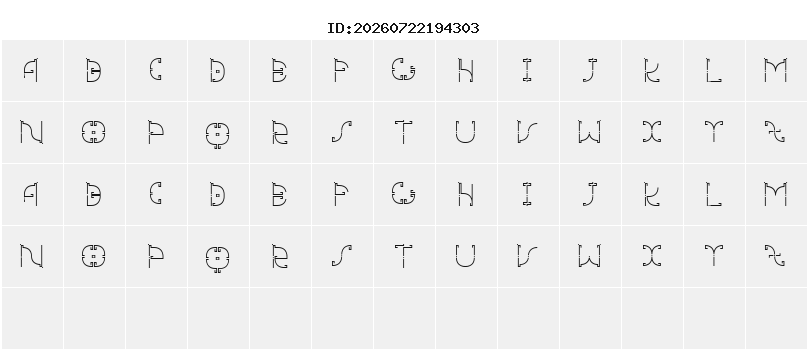
mesomorph Preview
• Font Name: mesomorph
About mesomorph.ttf
mesomorph.ttf is a modern, elegant sans-serif font designed for ultimate readability and visual harmony. Perfect for branding, headlines, web design, and print materials.